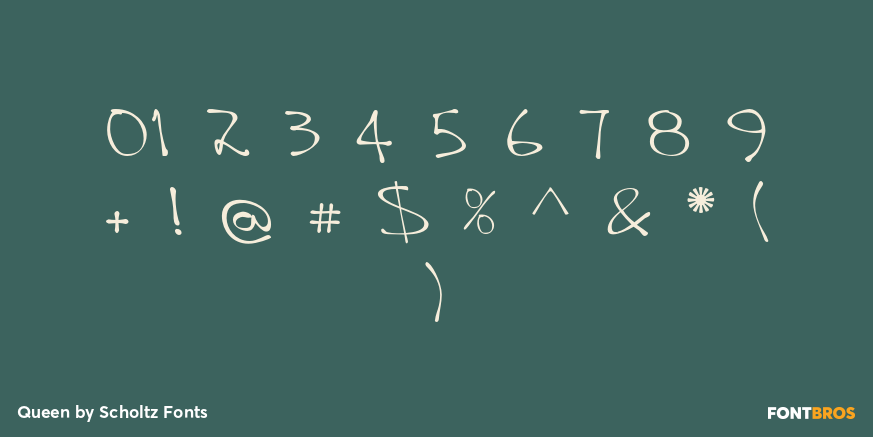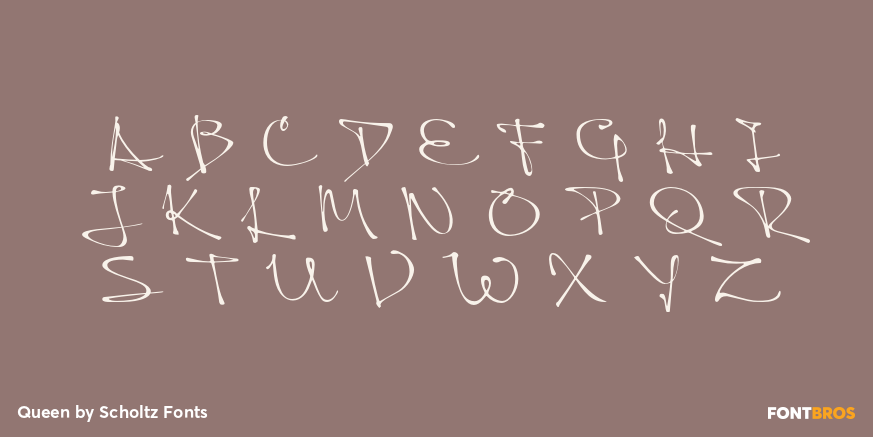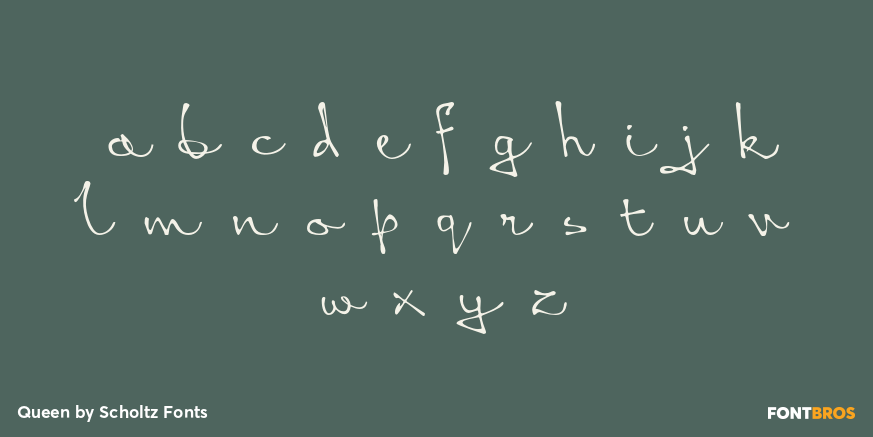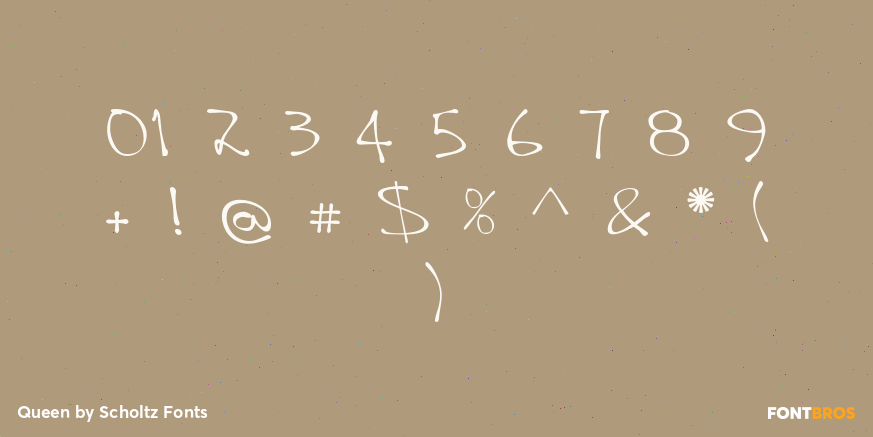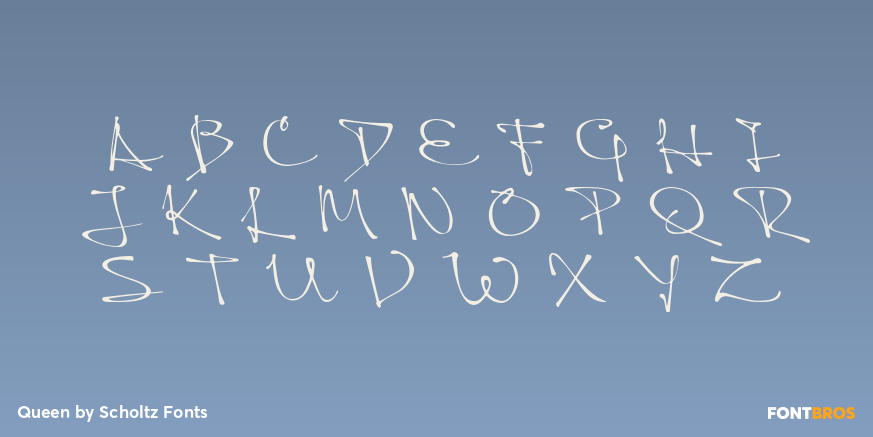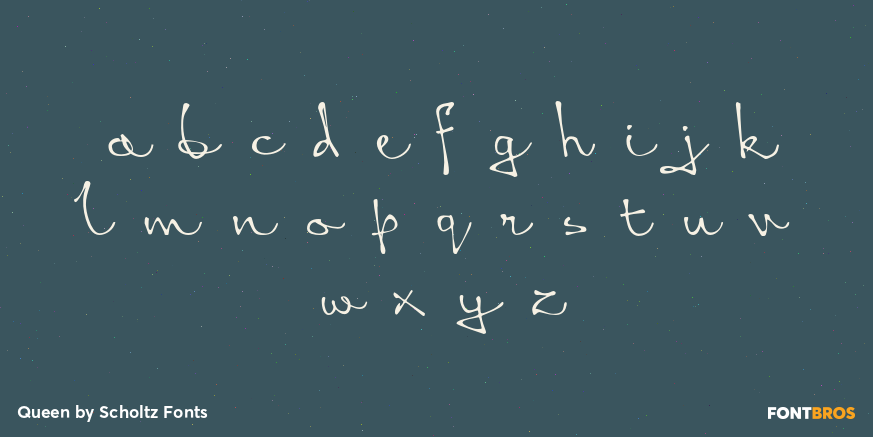
Queen
Font Family by Scholtz Fonts
Buy NowQueen is based on the designer's own hand. It is a handwriting font with a difference (just like Affable). It has all the vigor and spontaneity of a hurried note, combined with a skilled and precise joining of characters to give a true cursive script.
This font comes in three styles, Queen Regular, Queen Black & Queen Lite.
Queen is fully professional, carefully letterspaced and kerned, with line spacing (leading) that allows for accents for use in European languages. All upper and lower case characters, punctuation, numerals and accented characters are present.